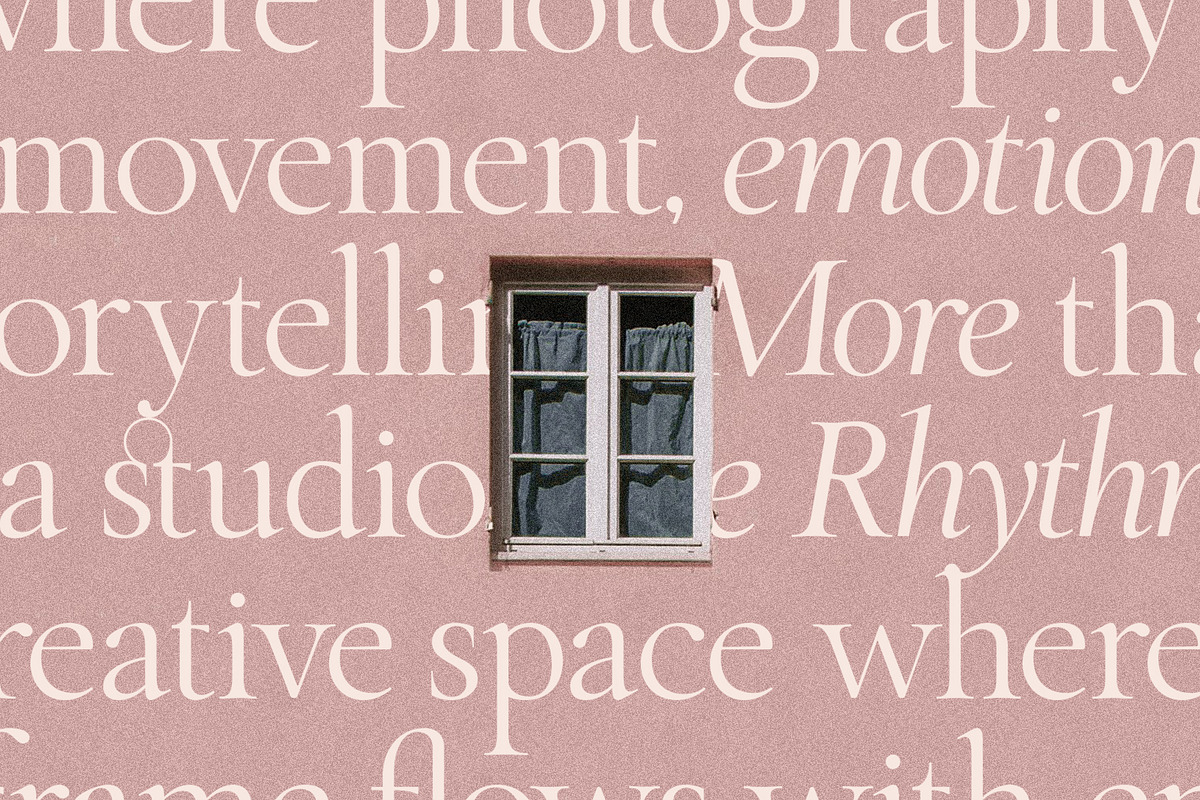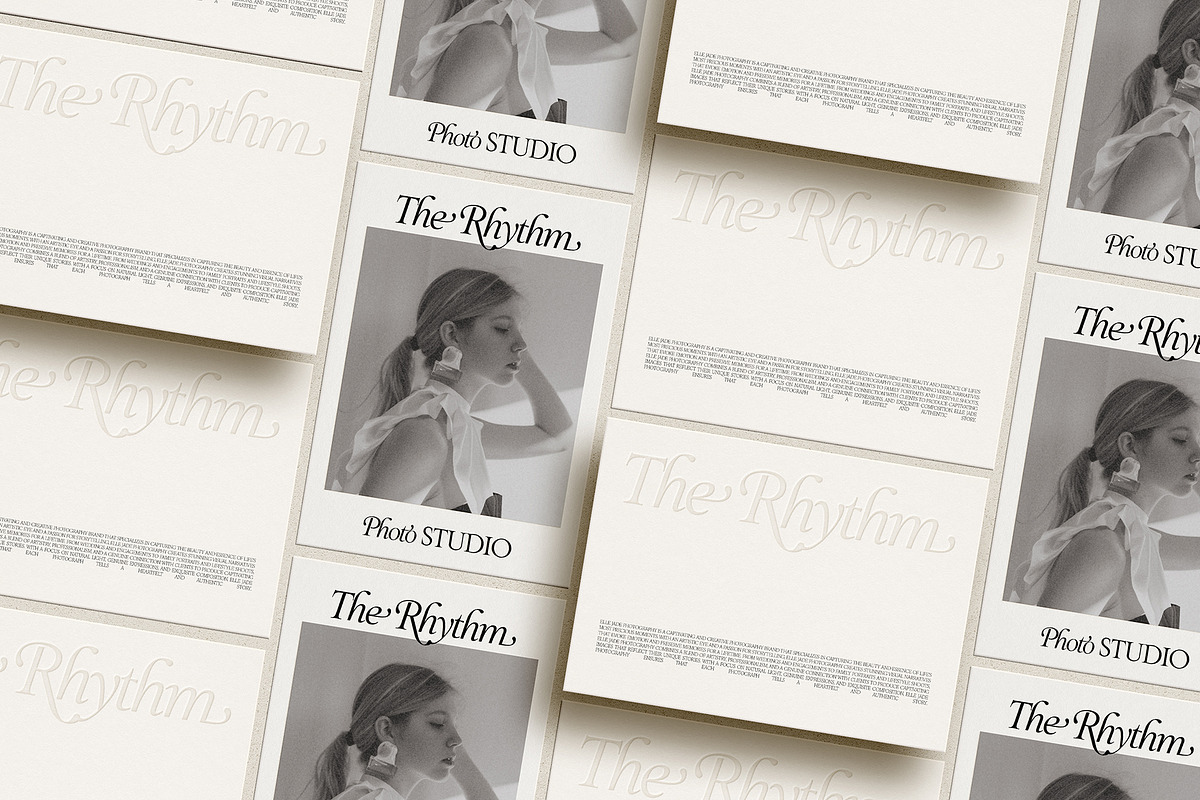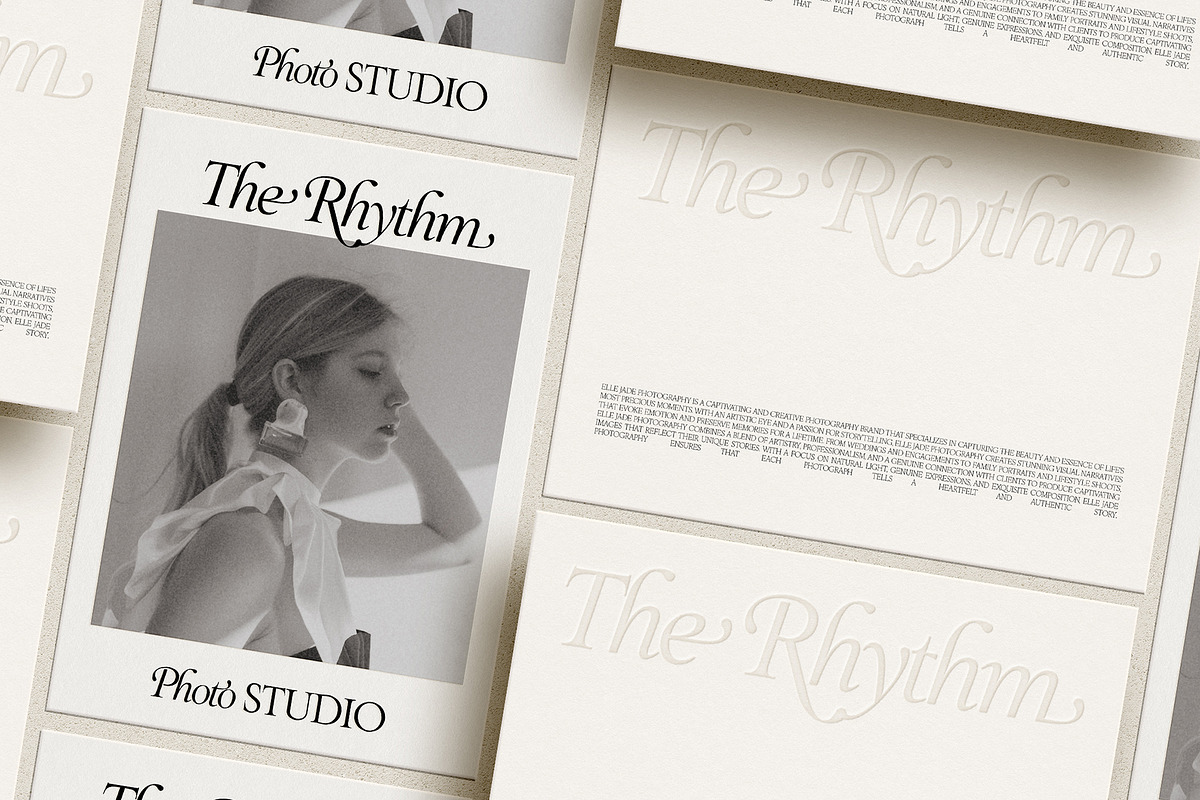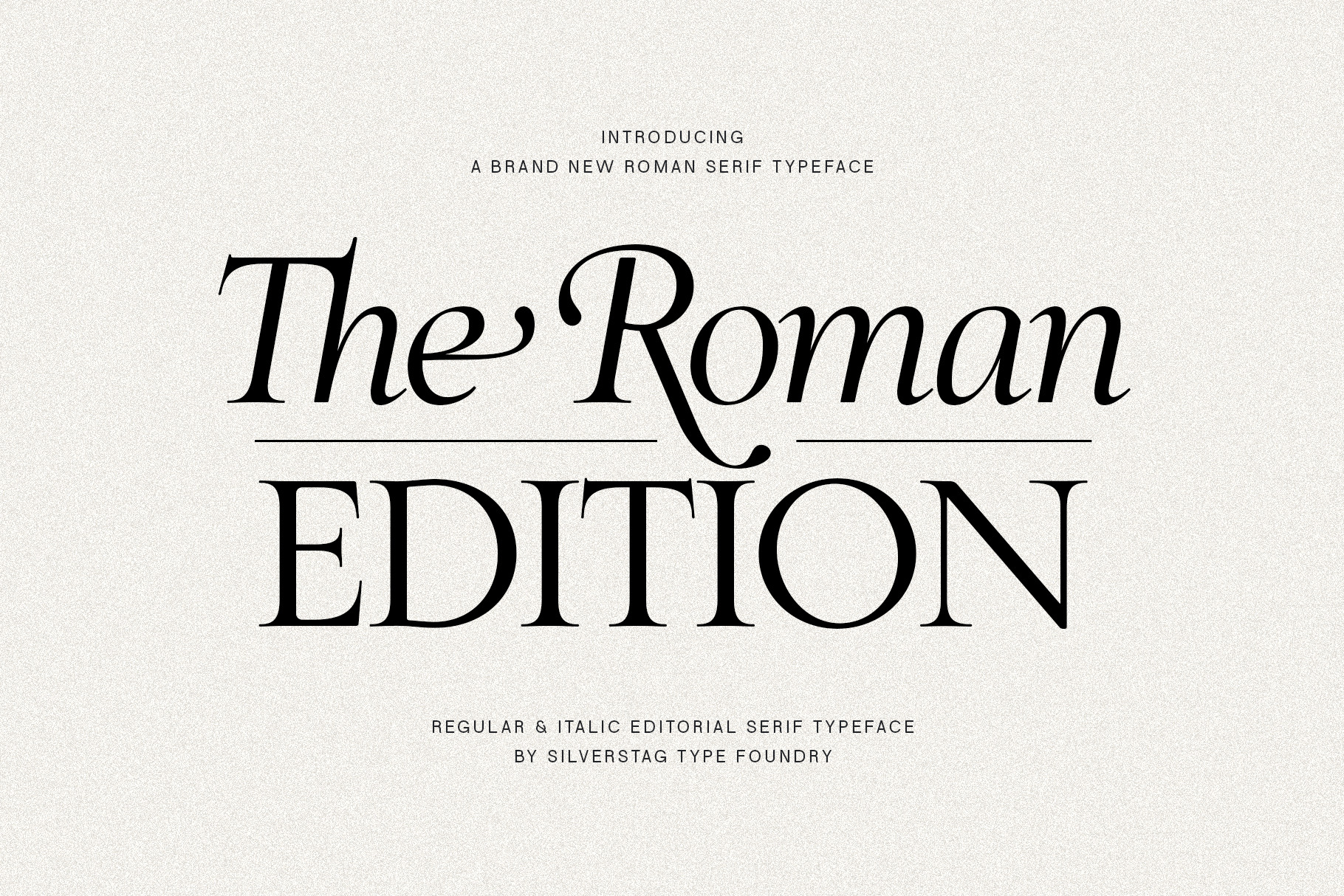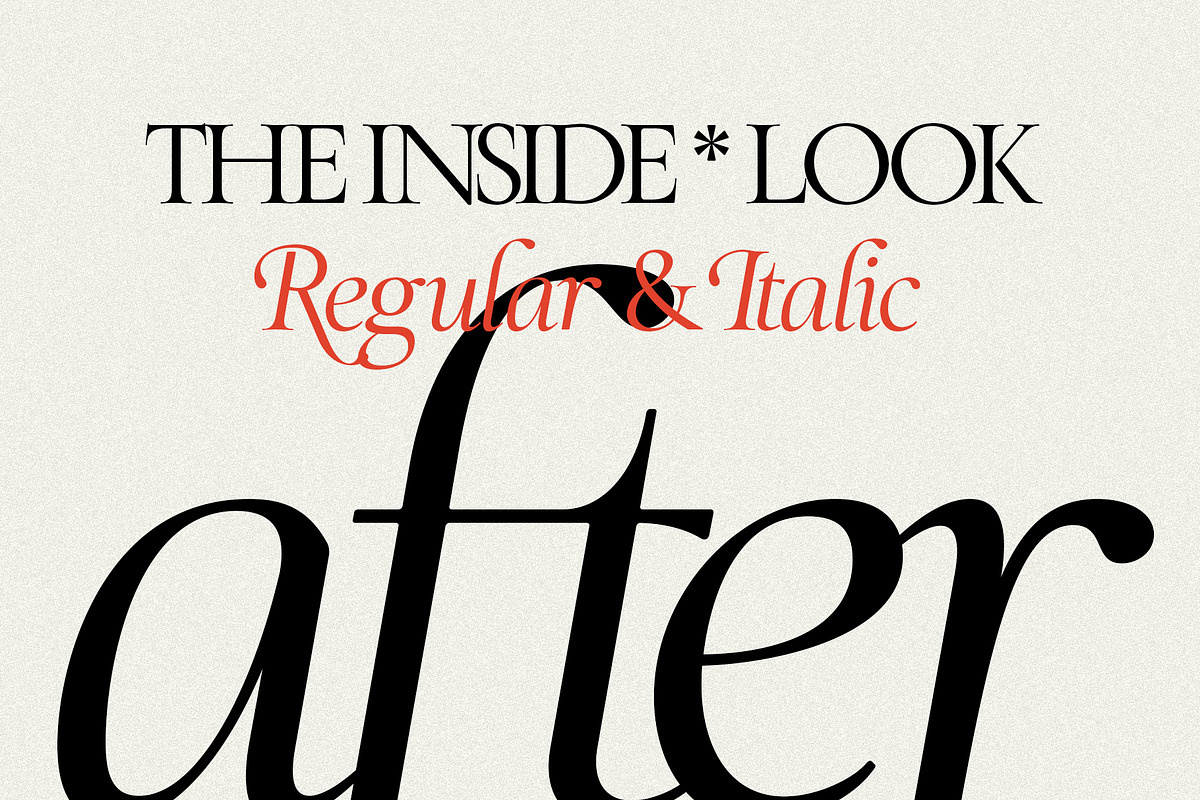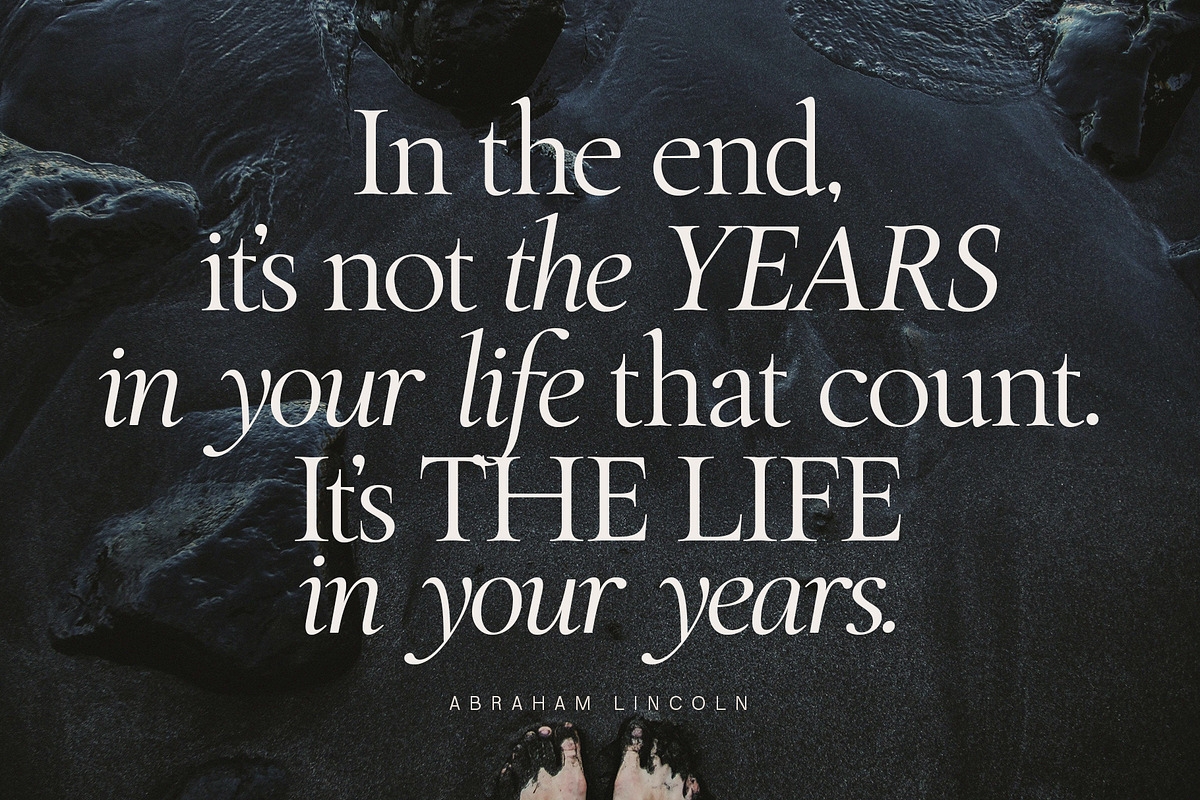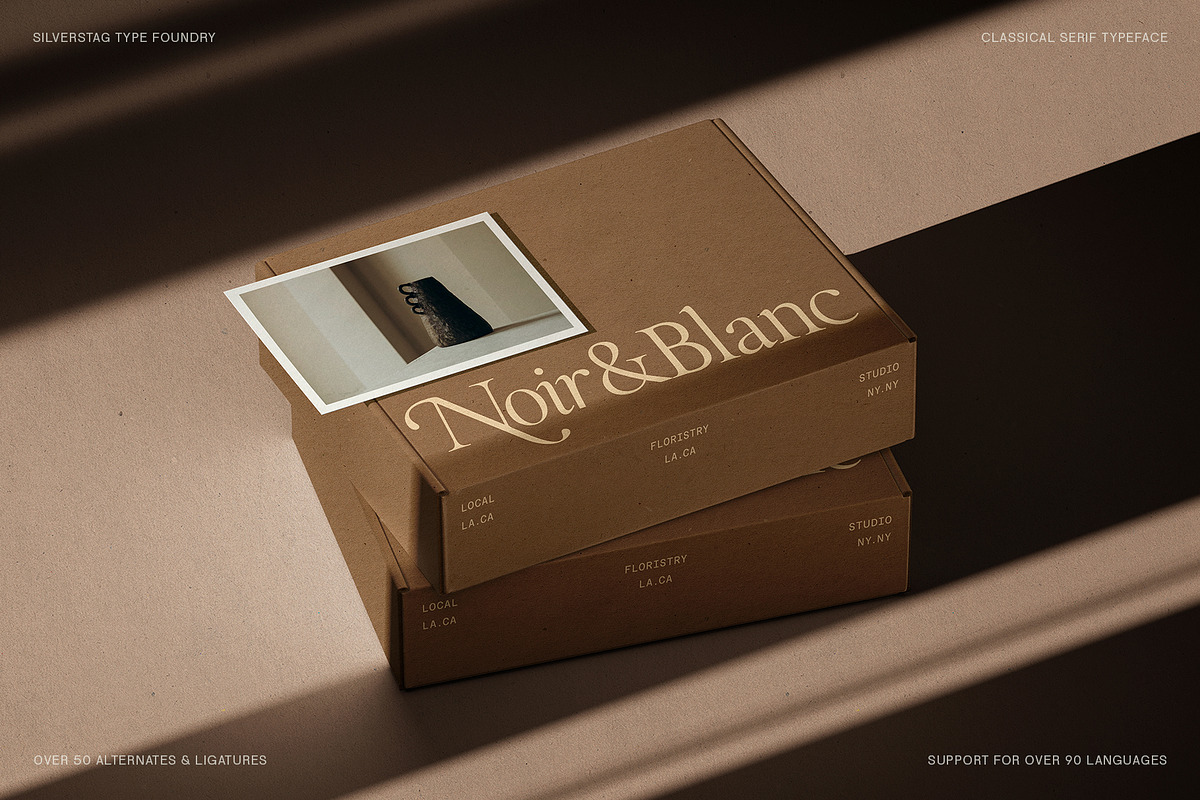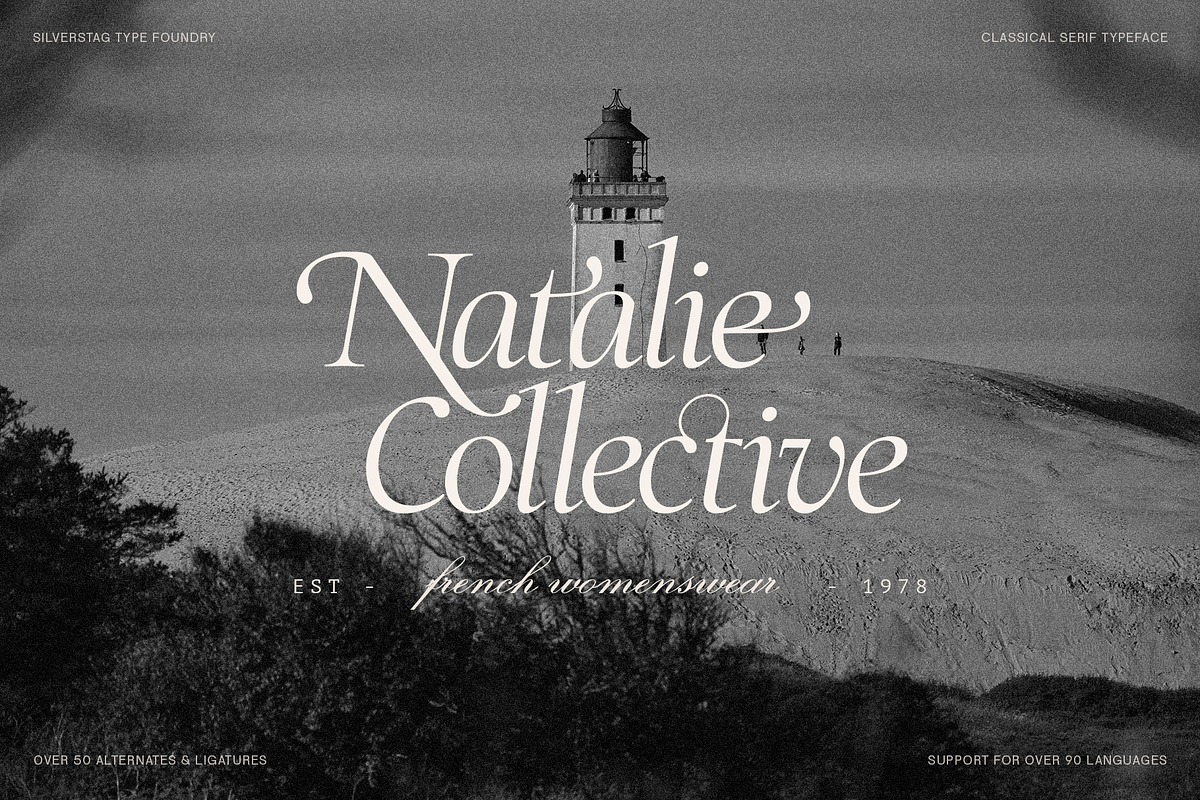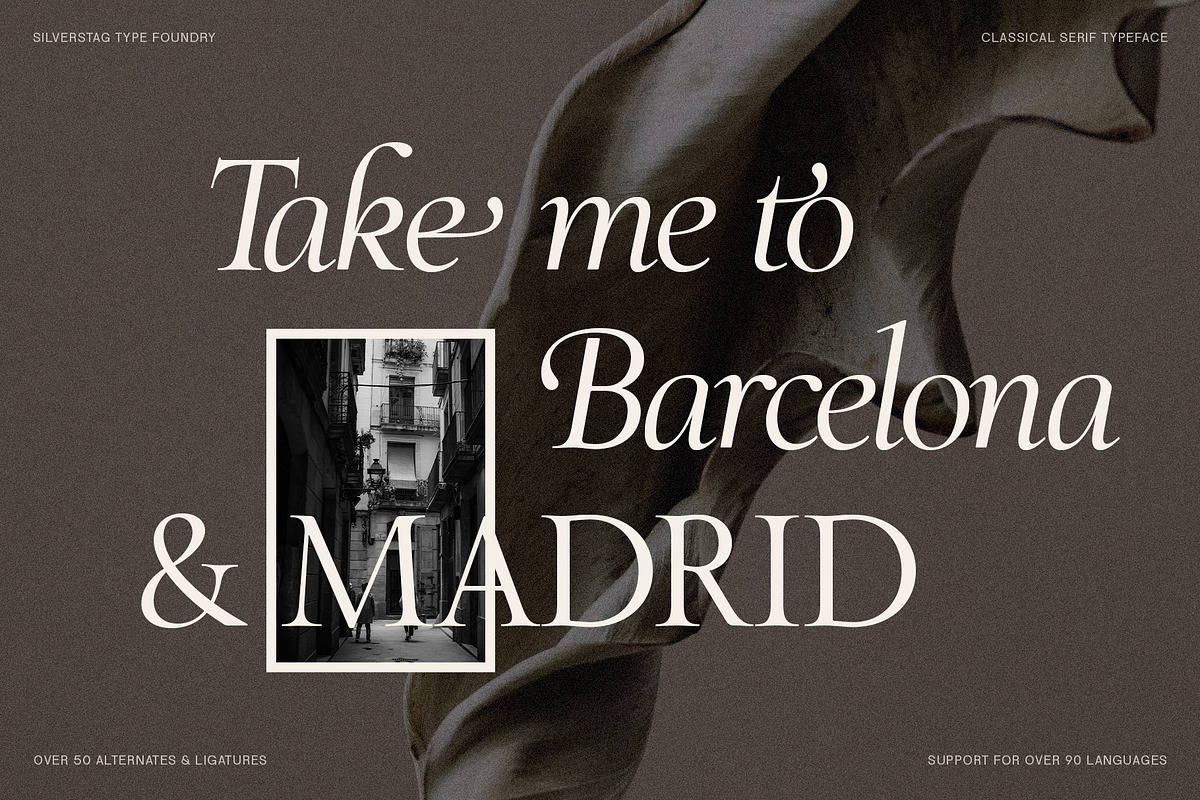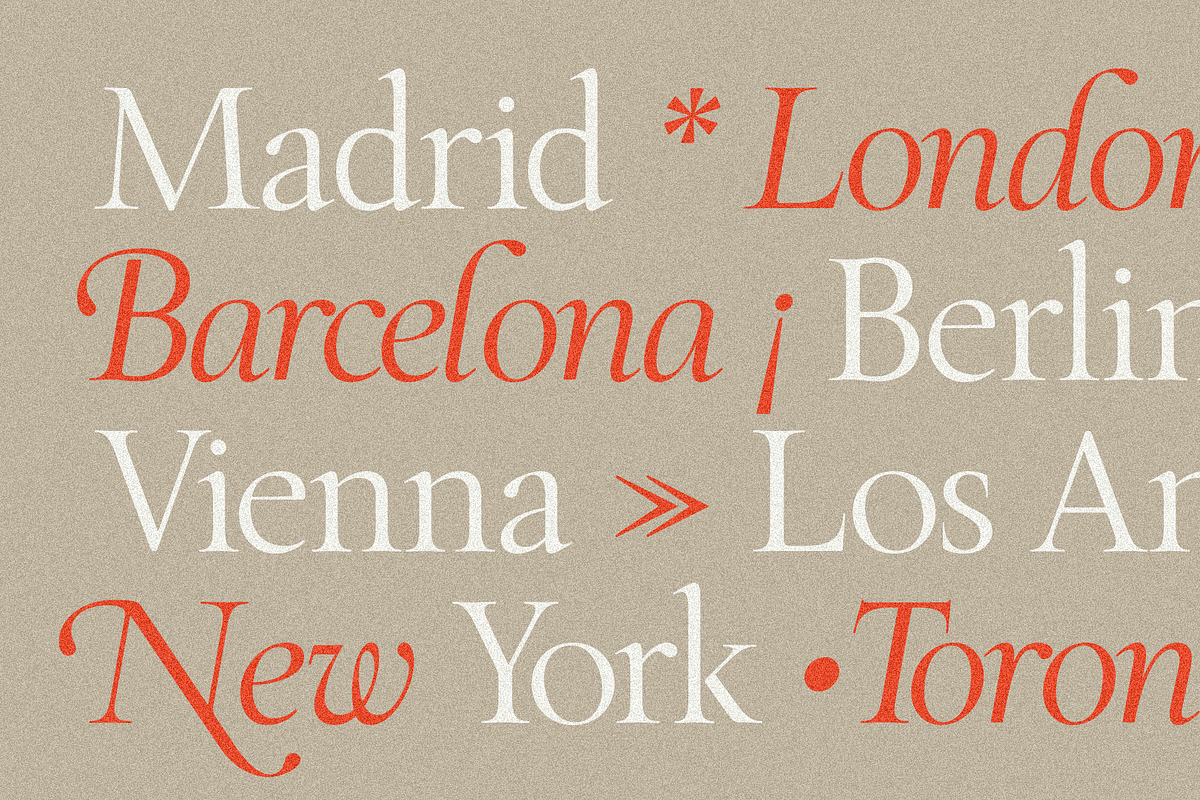
The Roman Edition - Serif Typeface
SLTF The Roman Edition – A Masterpiece of Classical Elegance & Editorial Sophistication
Step into a world of timeless typography with SLTF The Roman Edition, a typeface meticulously crafted to embody the rich heritage of classical Roman letterforms. Designed for those who appreciate refined aesthetics, this luxurious serif font blends historical inspiration with contemporary finesse, making it an essential tool for high-end branding, editorial design, luxury packaging, and sophisticated creative projects.
With flawless proportions, delicate serifs, and an undeniable air of prestige, The Roman Edition is more than just a typeface—it’s a statement of elegance, culture, and craftsmanship. Whether you’re designing a prestigious magazine layout, a heritage-inspired brand identity, or timeless wedding invitations, this font ensures your work exudes grace, class, and visual harmony.
A Typeface Crafted for Distinction
The Roman Edition is a celebration of the Golden Age of typography, designed with editorial refinement and luxury branding in mind. Every curve, serif, and ligature has been carefully drawn to bring beauty and fluidity to your projects, ensuring each word you set becomes a visual masterpiece.
This font is available in two perfectly balanced styles:
- Regular – A crisp, poised serif that speaks with clarity, confidence, and timeless elegance. Perfect for magazine headlines, book titles, premium product branding, and corporate identity.
- Italic – A refined counterpart to the Regular style, featuring graceful swashes, ornate flourishes, and calligraphic endings. Designed for editorial highlights, invitations, luxury fashion campaigns, and artistic branding.
Powerful Features for Elevated Design
- Over 50 Ligatures & Alternates – Carefully crafted to create natural letter connections, offering a seamless handwritten effect with sophisticated typographic nuances.
- Editorial-Ready Aesthetic – Designed with luxury magazines, fine art publications, and book covers in mind, making it ideal for long-form text layouts and high-impact headlines.
- Flawless Optical Balance – Every character has been drawn to maintain visual consistency, ensuring perfect readability and elegance at any scale.
- Multi-Language Support – Covering over 90 languages, The Roman Edition is crafted to meet the needs of a global audience.
- Luxury Meets Functionality – Whether in fashion branding, bespoke packaging, or advertising, this font captures the essence of high-end design.
Perfect for a Wide Range of Applications
The Roman Edition is designed to shine in both print and digital. Whether your project requires a refined editorial layout, a luxury logo, or an elevated social media presence, this typeface delivers unmatched sophistication.
Branding & Identity Make an unforgettable impression with branding that exudes legacy and craftsmanship. Ideal for fashion houses, perfumeries, jewelry brands, and premium product packaging.
Editorial & Publishing Elevate your magazine layouts, book covers, newspaper mastheads, and online publications with a typeface that speaks the language of tradition and refinement.
Luxury Packaging & Invitations For wedding invitations, bespoke stationery, wine labels, and beauty product packaging, The Roman Edition enhances designs with an air of exclusivity and grace.
Web & Digital Design From website headlines to social media graphics, this typeface delivers timeless appeal while ensuring readability and impact on modern digital platforms.
SLTF The Roman Edition is not just a font—it’s a journey into typographic excellence. It is designed for creators, designers, and brands who seek to bring historical grandeur and modern refinement into their work. Whether used for a luxury ad campaign, a museum exhibition, or a high-end publication, this typeface brings an unparalleled level of prestige.